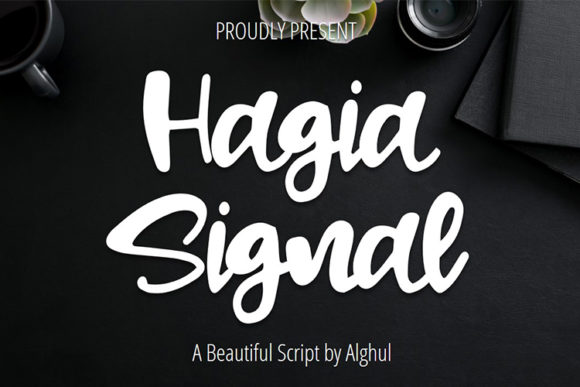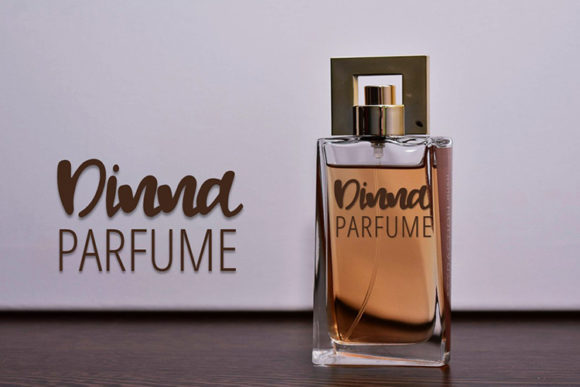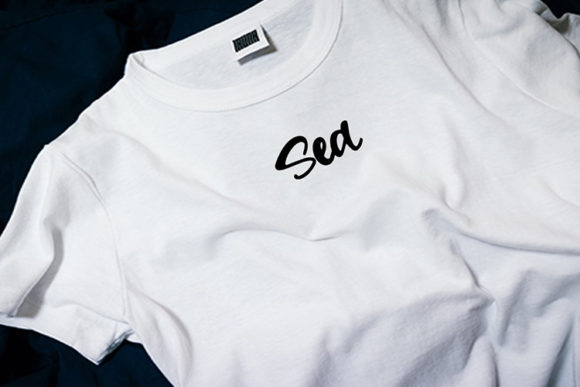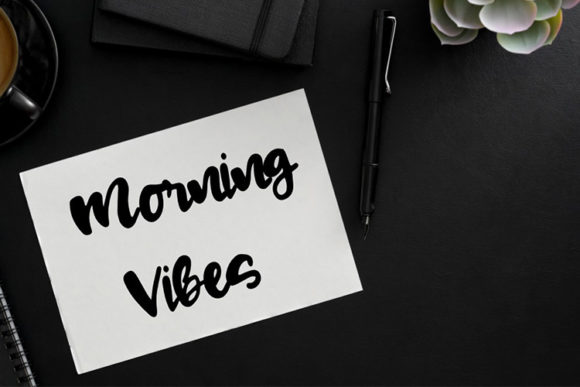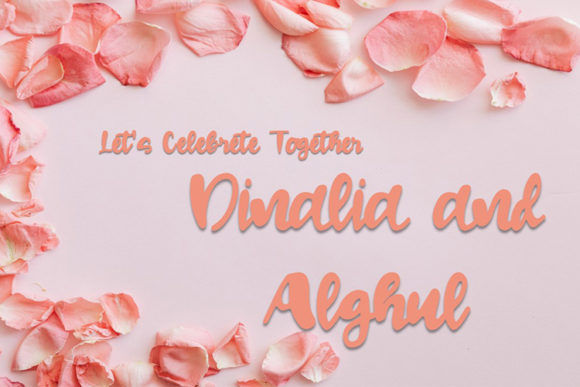
About Hagia Signal Font
Hagia Signal is a cute, round lettered handwritten font. Its natural and unique style makes it incredibly fitting to a large pool of designs.